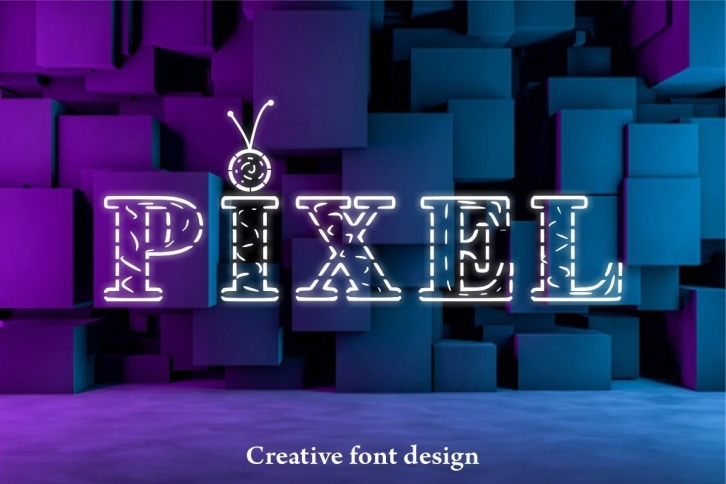
Pixel is a fun, cute, and modern display font. Perfect for tech-themed designs, especially when paired with bright pastel colors. Add this beautiful display font to any of your creative ideas, and see how it really stands out!